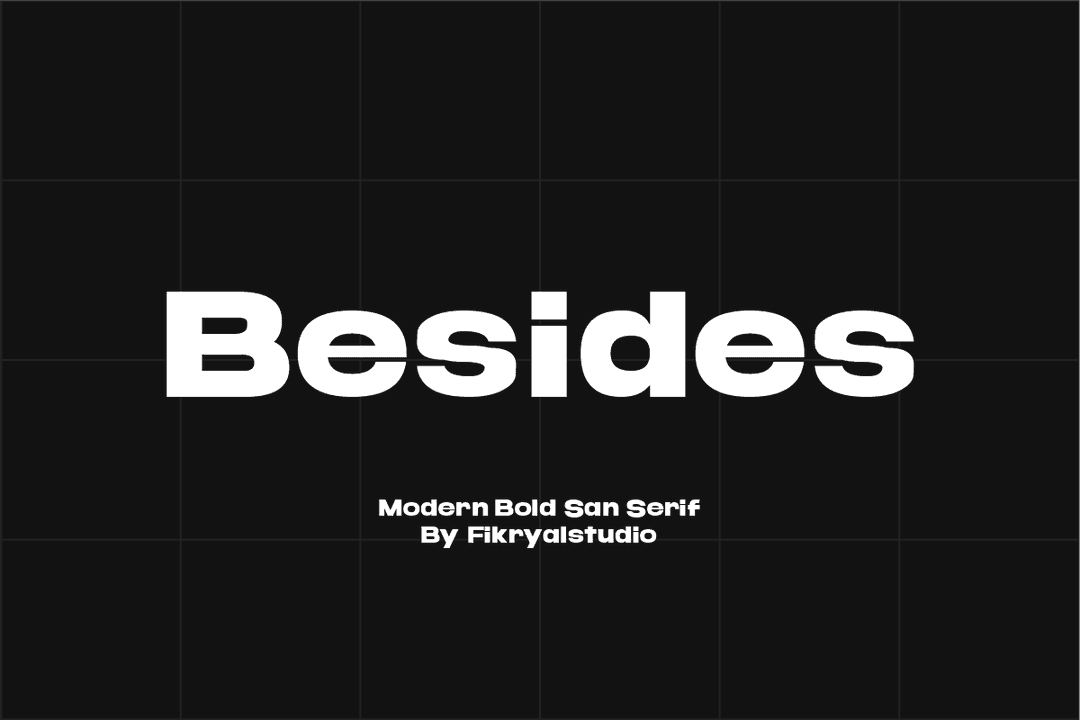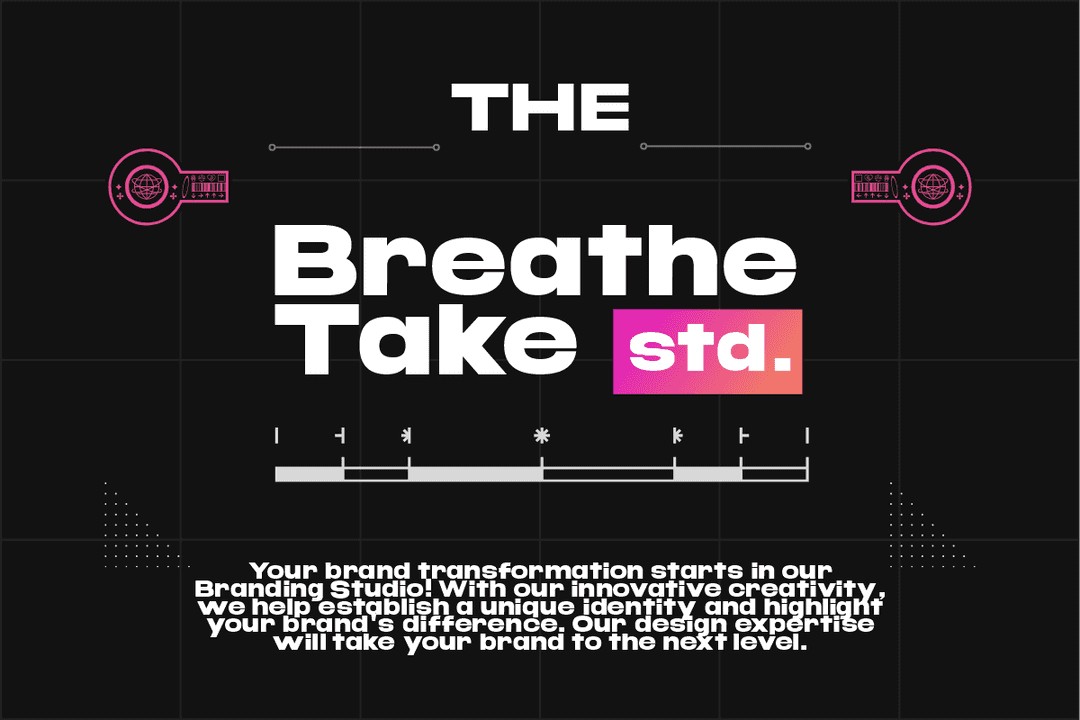
Besides is a contemporary and hookless sans serif font distinguished by clarity and boldness. Boasting bold, clear characters, Apart creates strong and eye-catching design ideas. Besides sans fonts provide a striking, modern aesthetic, making them the ideal choice for logos, titles and any design elements that require eye-catching appeal.